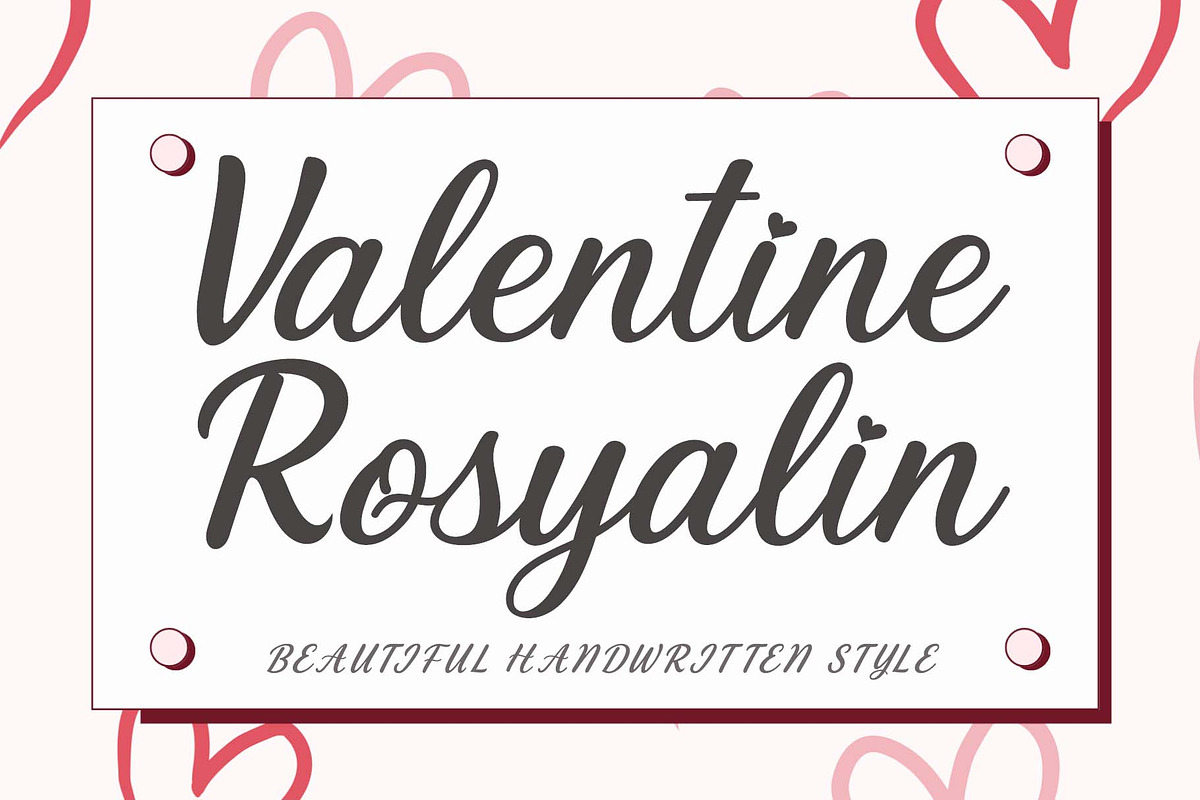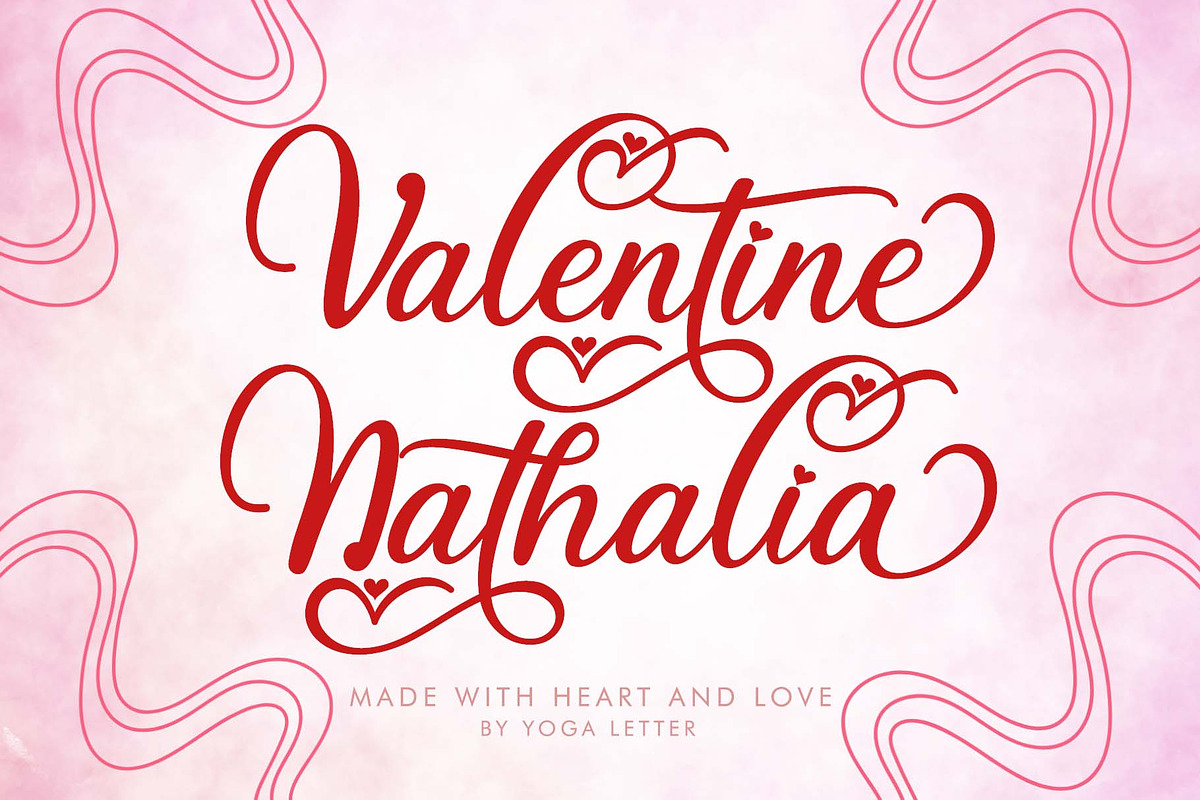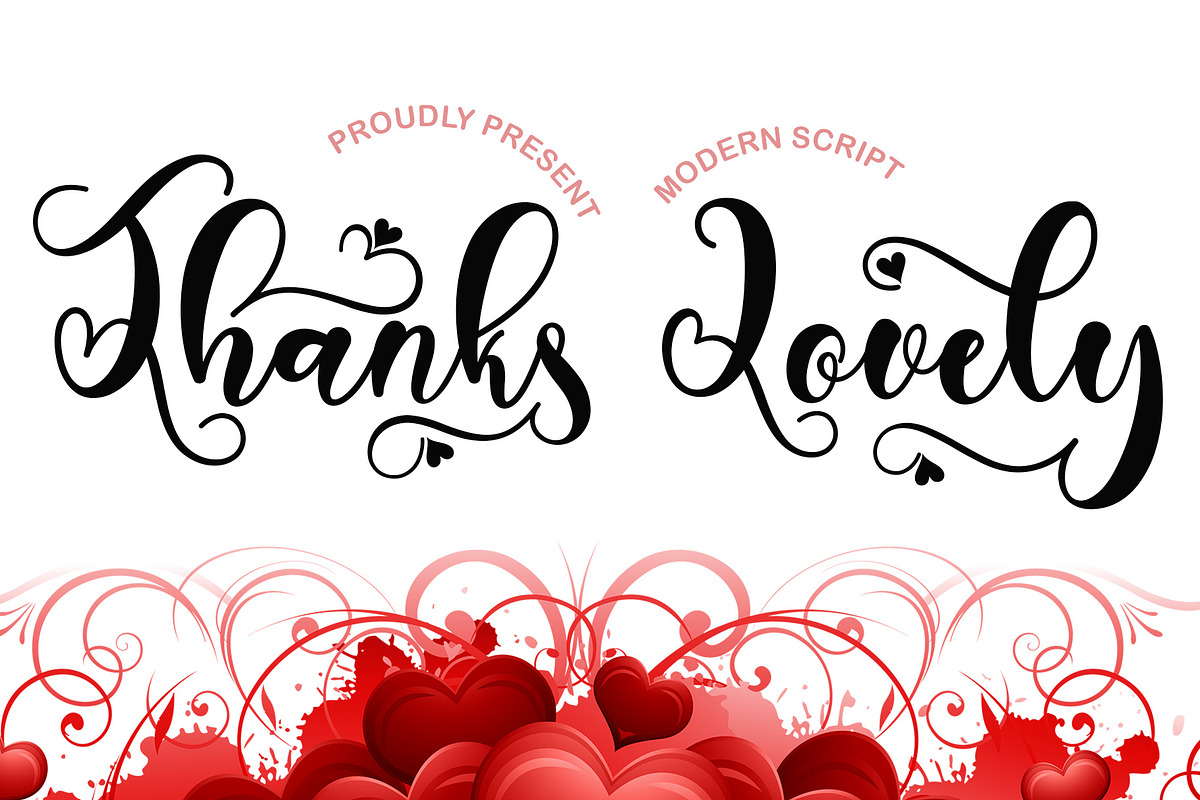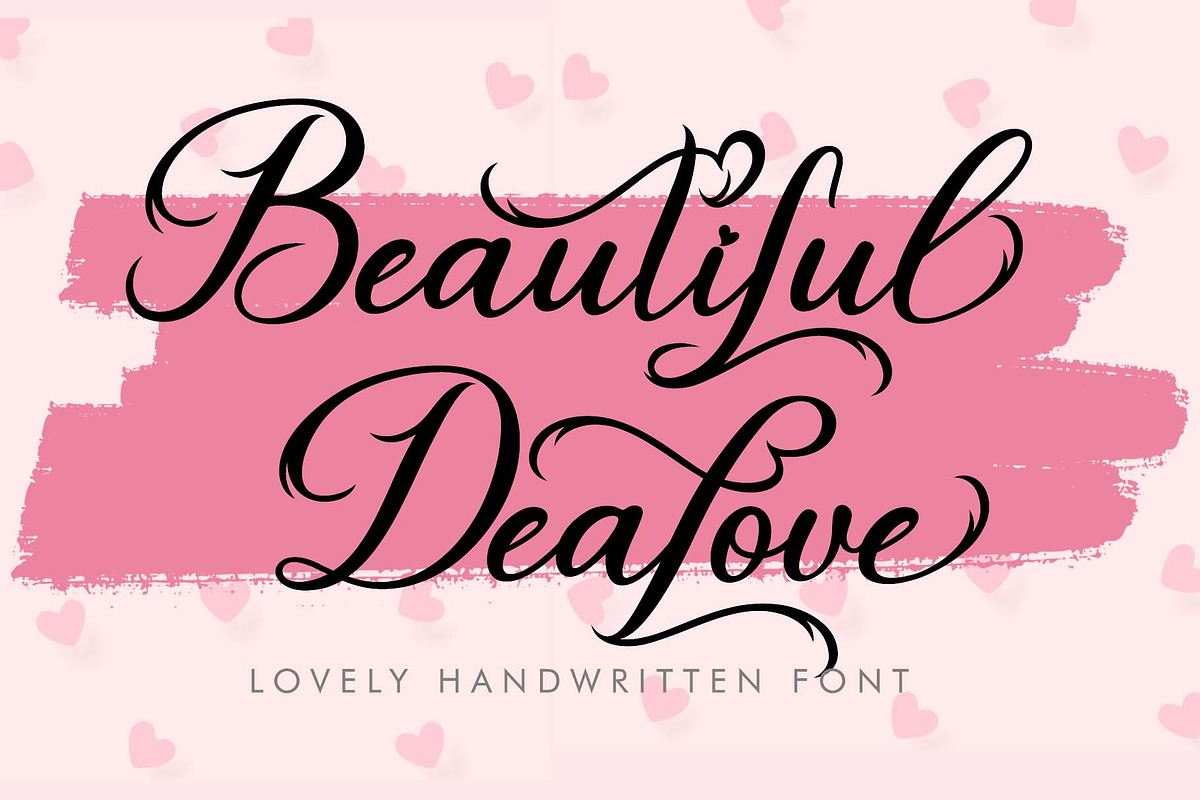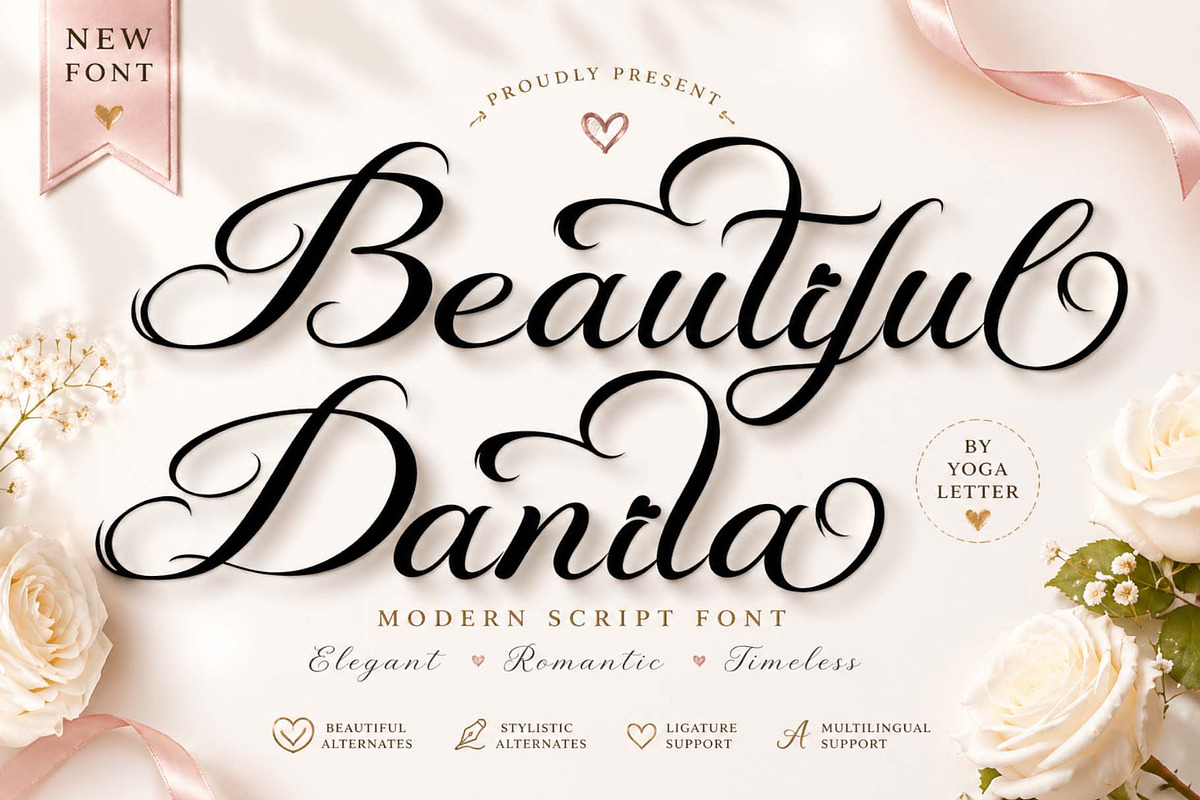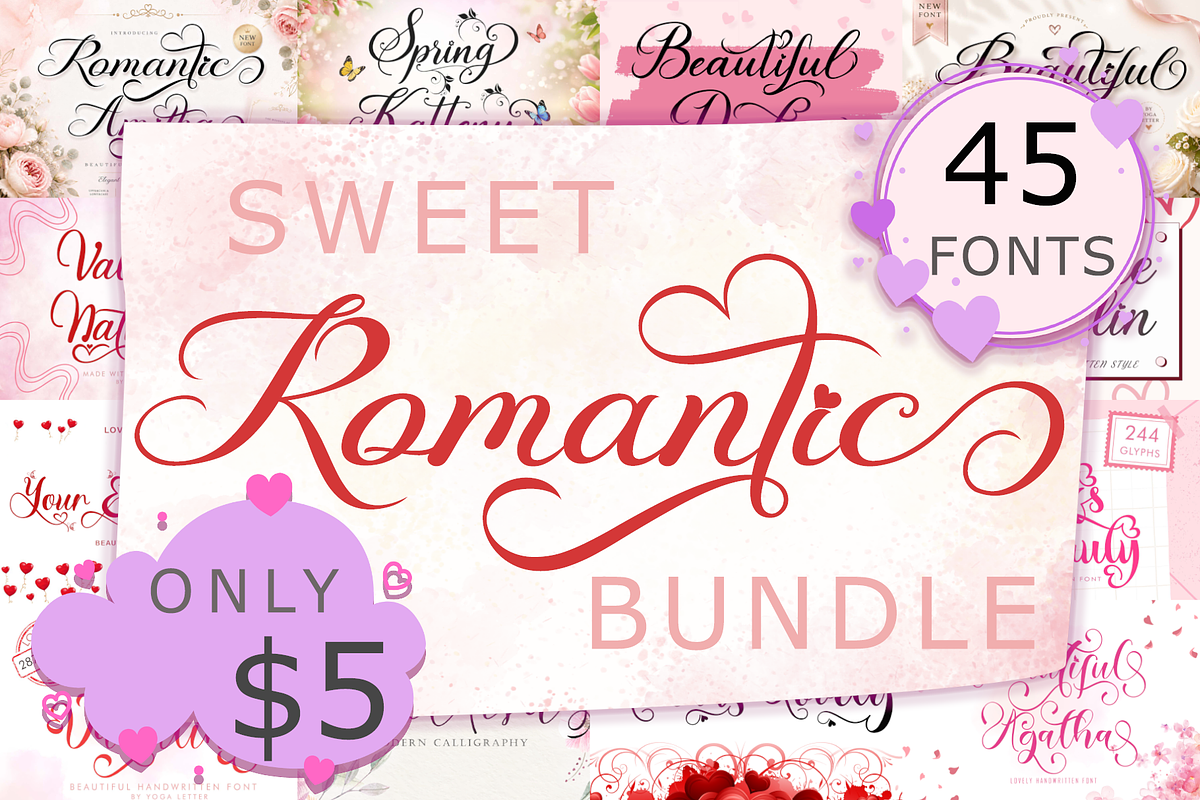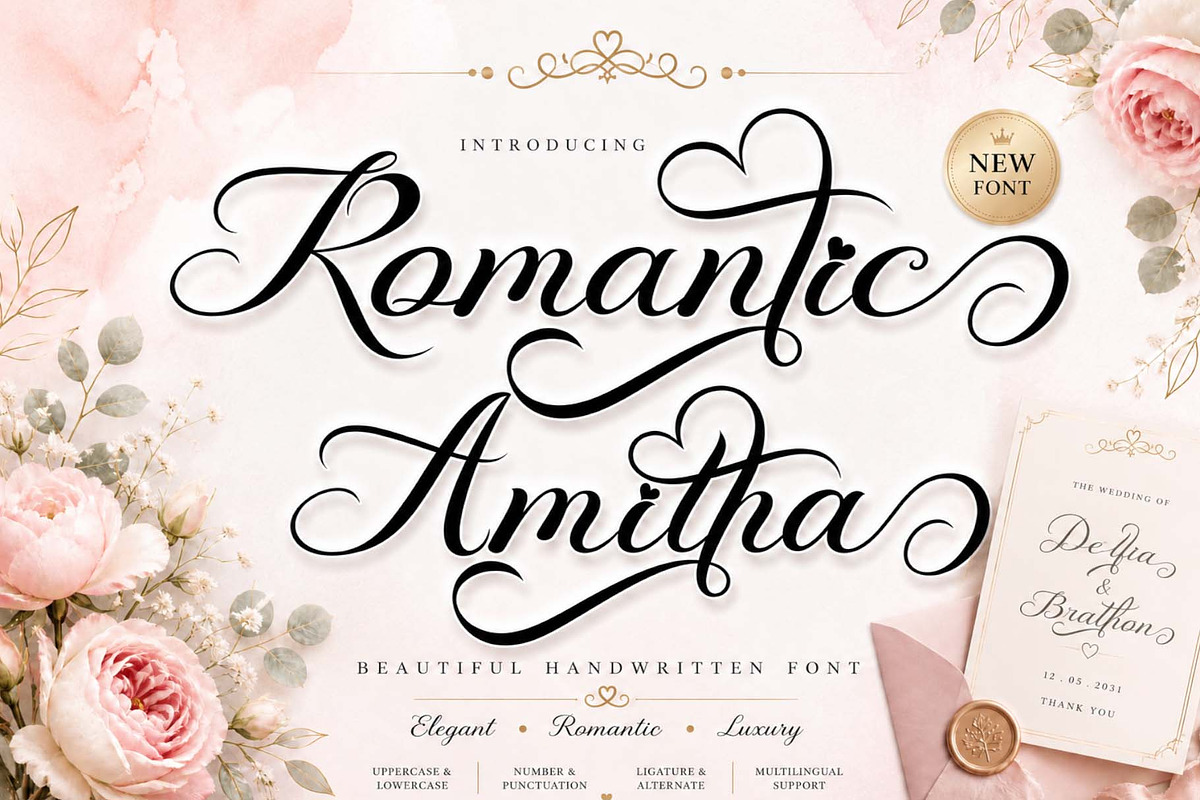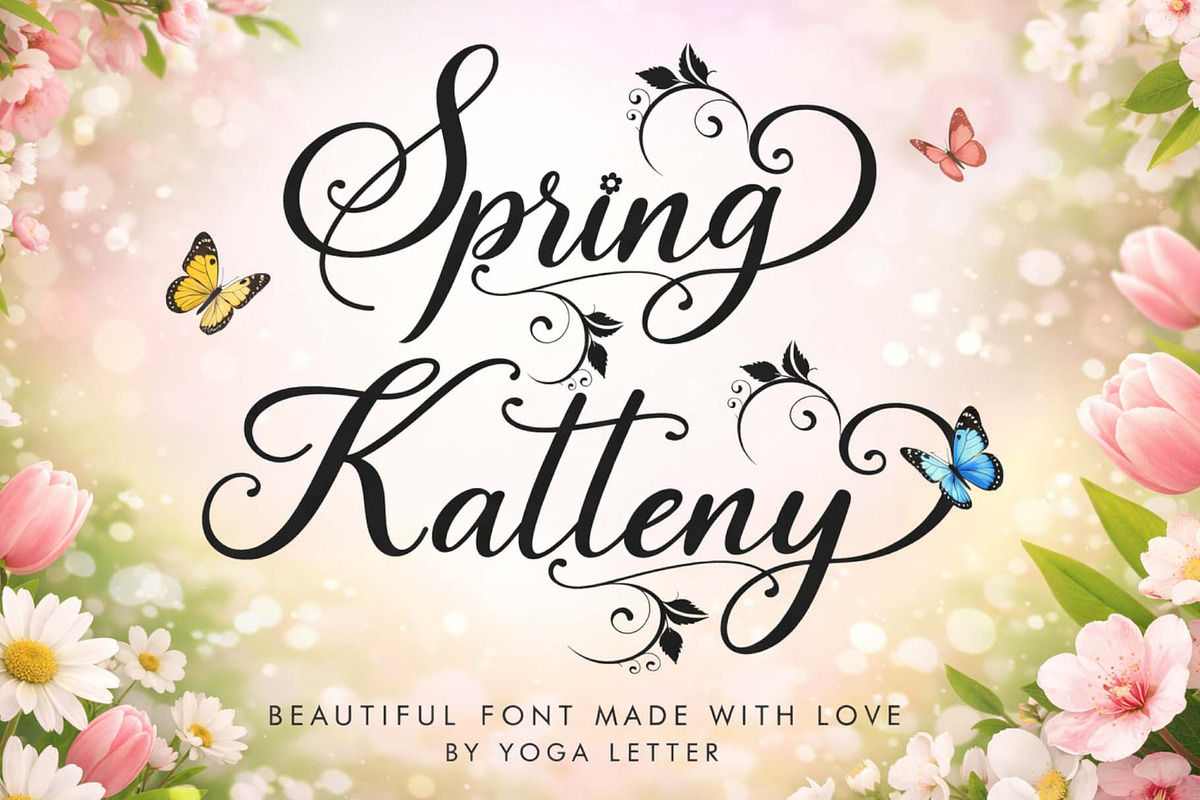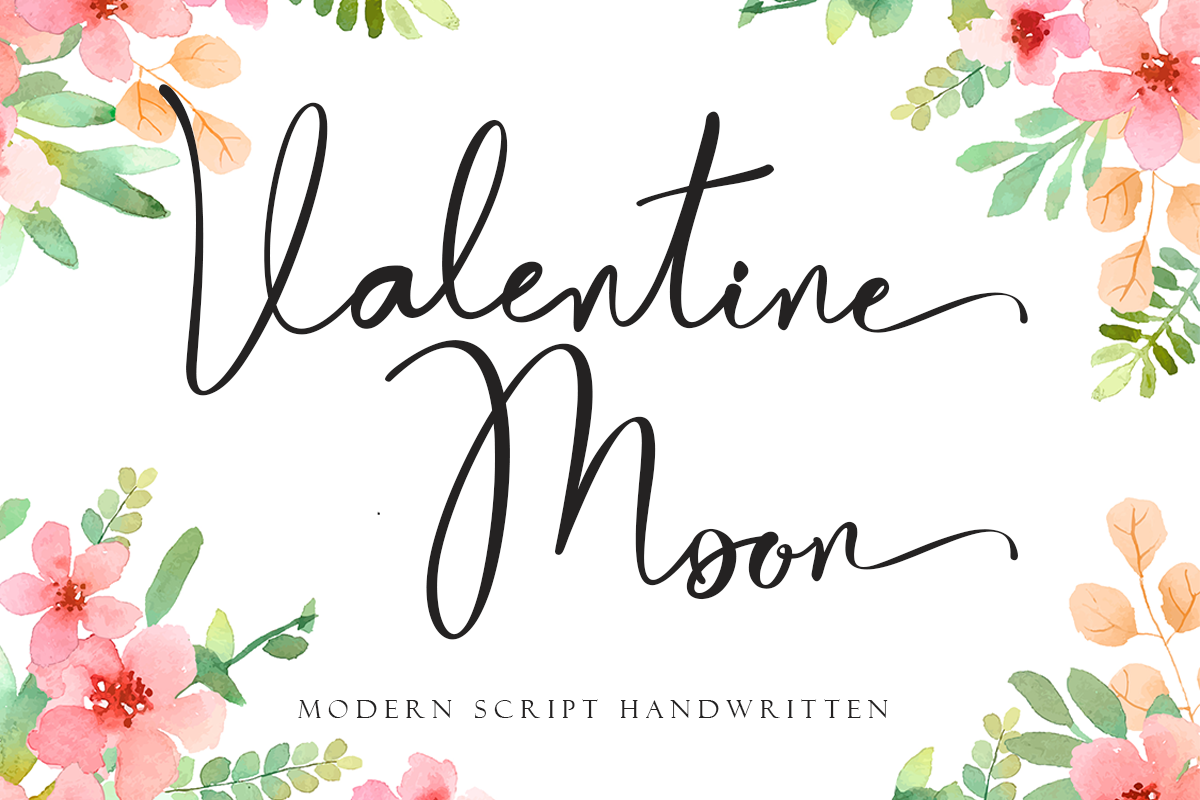
Romantic Sweet Bundle
This bundle contains 45 beautiful fonts :
1. Romantic Amitha
2. Beautiful Dealove
3. Alestha Butterfly
4. Beautiful Danila
5. Amalia Valentine
6. Amantha
7. Angelia Valentine
8. Art Valentine
9. Autumn Panorama
10. Balissha
11. Ballpoint Letter
12. Beautiful Agatha
13. Beautiful Monogram
14. Bertha Lovely
15. Bethlove
16. Bethy Valentine
17. Bhaillia
18. Brigitha Valentine
19. Charllona
20. Christmas Bonitha
21. Chtistmas Sanantha
22. Christmas Shepherd
23. Christmas Smile
24. Dorothy Spring
25. Dorothy Valentine
26. Emillisa
27. Heart Valentine
28. Hello Valentine
29. Honey Valentine
30. Leonisa
31. Maletha Collection
32. Melathi
33. Qanethya
34. Roshalia
35. Shamilove
36. Spring Heart
37. Spring Katteny
38. Sweet Amora
39. Thanks Beauty
40. Thanks Lovely
41. Valentine Moon
42. Valentine Nathalia
43. Valentine Rosyalin
44. With Rose
45. Your Everything